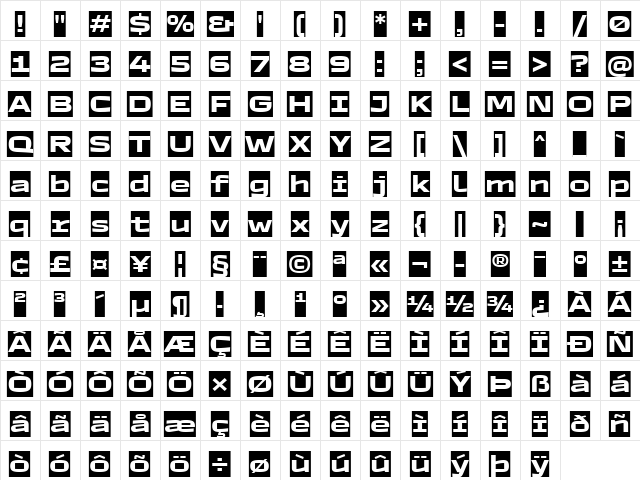
TT Autonomous Reverse Trl Bd Free Font
TT Autonomous Reverse Trl Bd
Style: Bd
Designer: Designed by Yulia Gonina, Antonina Zhulkova, Anna Tikhonova, Eugene Tantsurin. Technical designers Ivan Gladkikh, Yuri Nako, Victor Rubenko, Kirill Maslov.
TT Autonomous Reverse Trl Family
Design Context for TT Autonomous Reverse Trl
TT Autonomous Reverse Trl is a composed and adaptable typeface that performs quietly and consistently across a wide range of design contexts. Its bold stroke weight gives it real presence on the page.